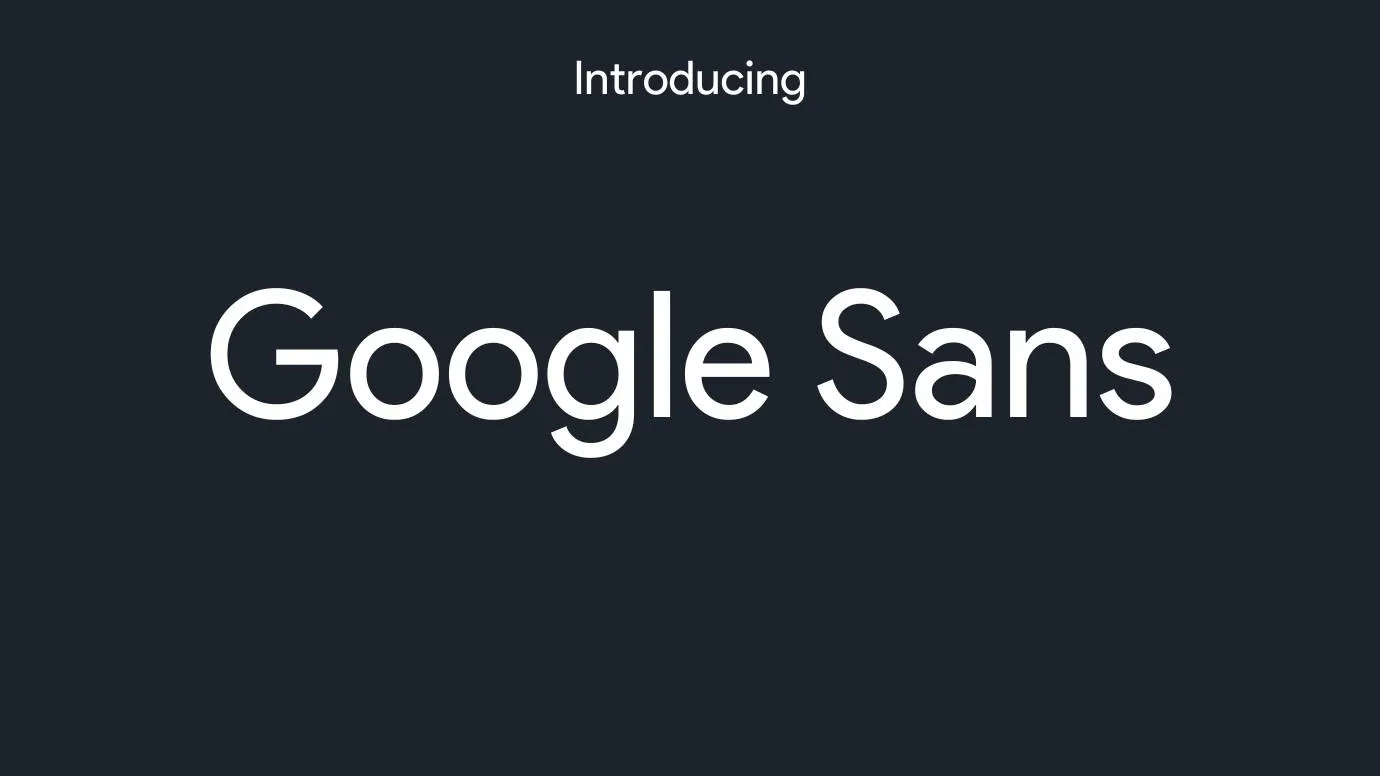
Font Introduction
Google Sans Font Family is the geometric serif typeface that comes with bold styling and this font designing has been done by the tech giant Google, and this font is used in the logo of the famous browser Google. The traces that are present in this typeface are quite simple in nature and these work well with asees font and this combo provides the looking that is easy to use and read.
The most famous use of this typeface has can easily be seen in the logo of the most famous browser namely Google. This typeface is also being used as the main typeface of Github. This font is commonly used in the making of different tags and trademarks and this versatile typeface works great with the pair of exo font and this is mostly used for brand promotion.
Features of Google Sans Font
- This is the basic sans-serif typeface that is famous because this typeface comes along with a unique and distinctive style and that makes this font an amazing choice for digital platforms.
- This typeface comes with superb readability attributes that can easily be seen in the letterforms of this typeface and this also be used in some of the Google pages as well.
Details of Font
Name | Google Sans Font |
Type | Serif |
Designer | Jesse Kaczmarek, Colophon Foundry |
Faqs
What Type of Font Is the Google Sans Font?
This is the sans-serif font created by an American designer. You can highly consider this font in many designs and websites.
Where Can Google Sans Font Be Used?
If you looking forward to knowing where you can use this font so there is a big list of projects such as Projects, Branding and Promotions, Products, Advertisements, and more.
Is This Font Worth Using?
This is one of the most worthy typefaces that is being used by many different organizations because of its clean texture.